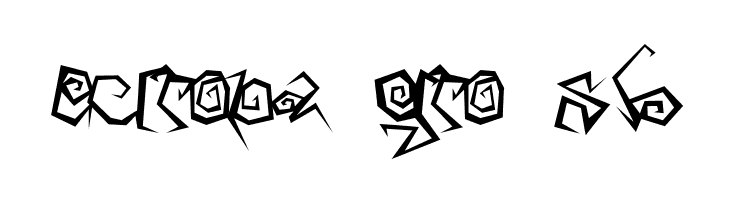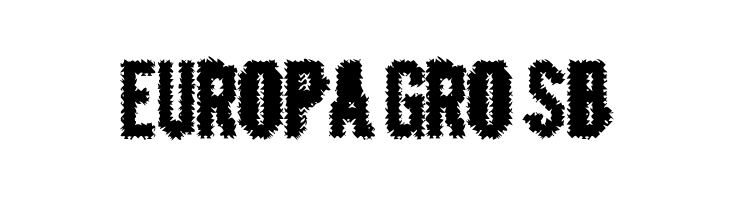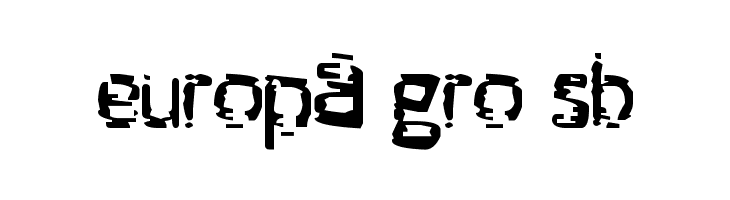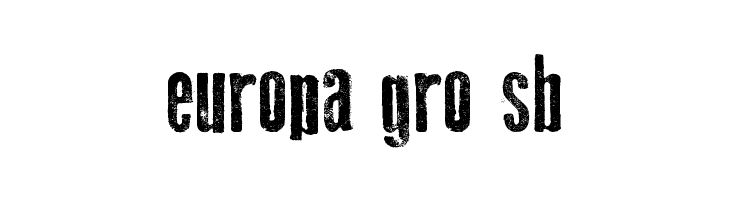
A decorative, angular font with a gothic, spider web-inspired design.
A bold, jagged font with a chaotic, explosive style.
A bold, glitch-inspired font with a modern, distressed look.
A bold, distressed font with a vintage, handcrafted appearance.